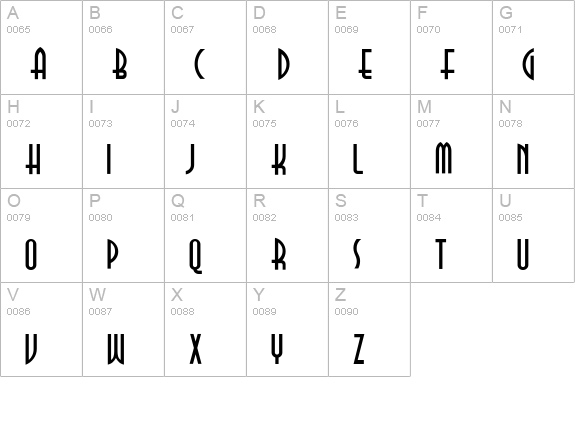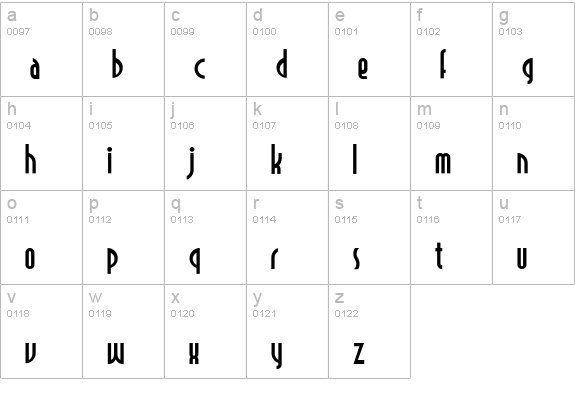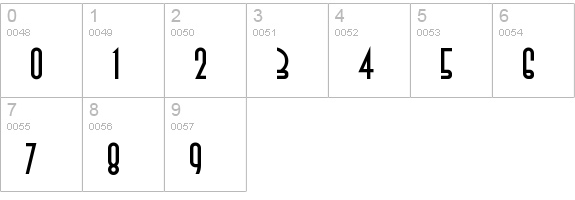
SelznickNormal Font Details
SelznickNormal is a versatile and elegant font that is perfect for adding a touch of sophistication to any project. With its clean lines and classic design, this font is sure to make a bold statement. Whether you're creating a logo, designing a website, or crafting a beautiful invitation, SelznickNormal is the ideal choice. One of the greatest advantages of SelznickNormal is that it is freely available to download at FontsMarket.com. This means that you can enjoy the benefits of this stunning font without having to spend a dime. By offering it for free, the creators of SelznickNormal have made it accessible to anyone and everyone, regardless of budget or resources. The beauty of SelznickNormal lies in its simplicity. It is a font that exudes elegance and refinement, yet remains incredibly easy to read. Its carefully crafted letterforms ensure that each character flows seamlessly into the next, creating a harmonious and visually pleasing result. Whether you're designing for print or digital media, SelznickNormal will effortlessly elevate your work to the next level. Its versatility allows it to be used in a wide range of applications, from headlines and body text to titles and captions. With its timeless appeal, SelznickNormal is a font that will never go out of style. So why wait? Go ahead and download SelznickNormal for free at FontsMarket.com today. Discover the endless possibilities that this remarkable font has to offer and take your designs to new heights. Whether you're a professional designer or simply someone with a passion for creativity, SelznickNormal is a font that you won't want to miss out on.